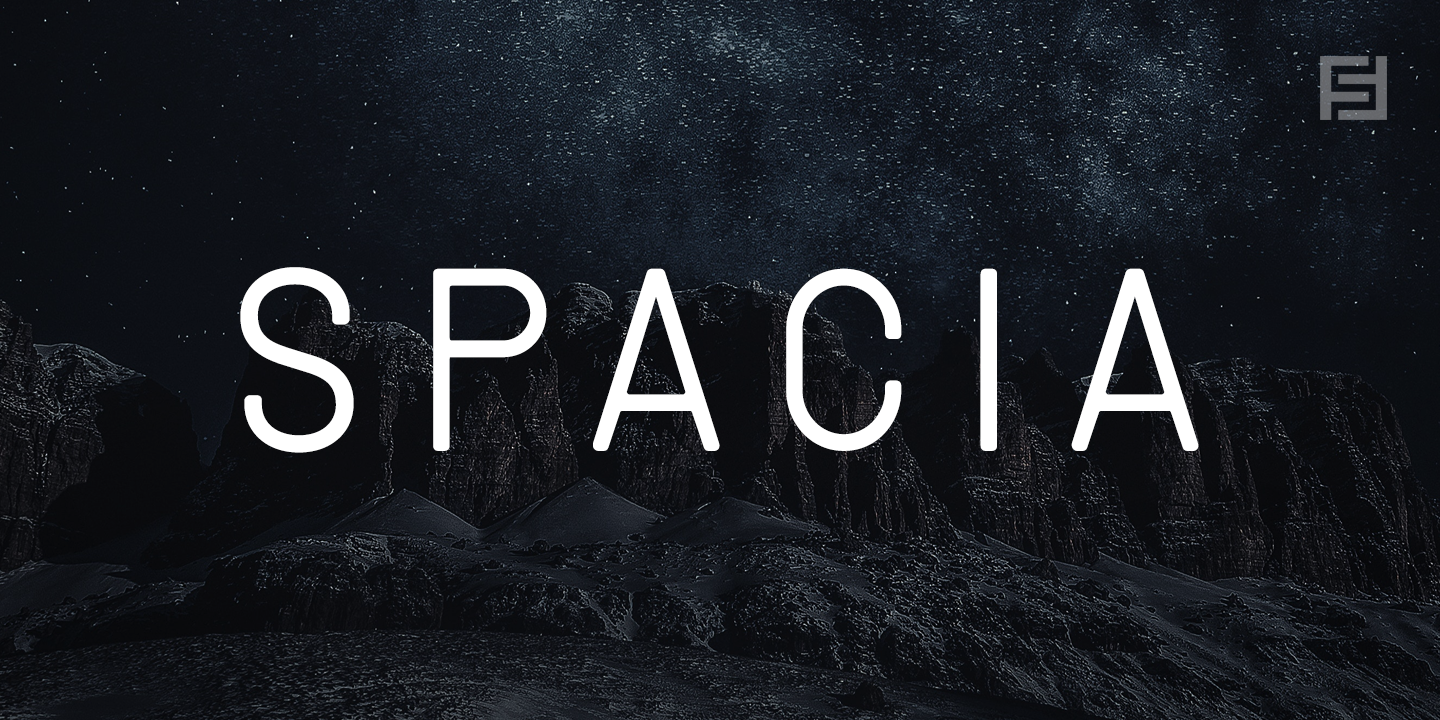
Spacia Font is a sleek and exceptionally modern typeface, perfectly suited for projects that demand a sense of openness, technological clarity, and forward-thinking design. Imagine it forming the crisp typography for innovative tech company branding, providing clear and inviting text for sophisticated user interfaces, or enhancing the readability of online publications that embrace minimalist aesthetics. It's also an excellent choice for crafting impactful headlines in advertising campaigns, designing effective and expansive architectural presentations, or bringing a reliable and structured presence to digital documents and e-commerce platforms where clean lines and a spacious feel are key. If you're looking for a font that truly stands out with its clean forms and compelling presence, Spacia Font is an outstanding selection.
What makes Spacia Font so exciting? It’s its unique blend of geometric precision and thoughtful spacing, which creates an immediate sense of refined balance and modern sophistication. This font often features carefully balanced letterforms, generous counters, and optimized spacing that ensure exceptional readability across various sizes and mediums, from sharp digital displays to high-resolution printed materials. Its clean lines, neutral yet inviting character, and professional appearance allow it to integrate seamlessly into diverse design ecosystems, supporting content without distraction while conveying a progressive and refined sensibility. Designers will appreciate its understated elegance and its ability to lend an air of sophistication and modernity to any project, making it a highly dependable choice for achieving a polished and visionary outcome.
The Spacia Font family is typically designed with a comprehensive range of weights and styles to provide maximum flexibility for designers, often boasting an extensive character set suitable for global applications. You can generally expect to find numerous variations such as Thin, Light, Regular, Medium, SemiBold, Bold, and Black, accompanied by matching italic versions for each. This extensive family ensures that Spacia Font can be used to create sophisticated typographic hierarchies, maintain consistent branding across diverse mediums, and offer flexible design solutions for both print and digital environments. Discover the unwavering clarity and contemporary style of Spacia Font Free Download for your next design endeavor.